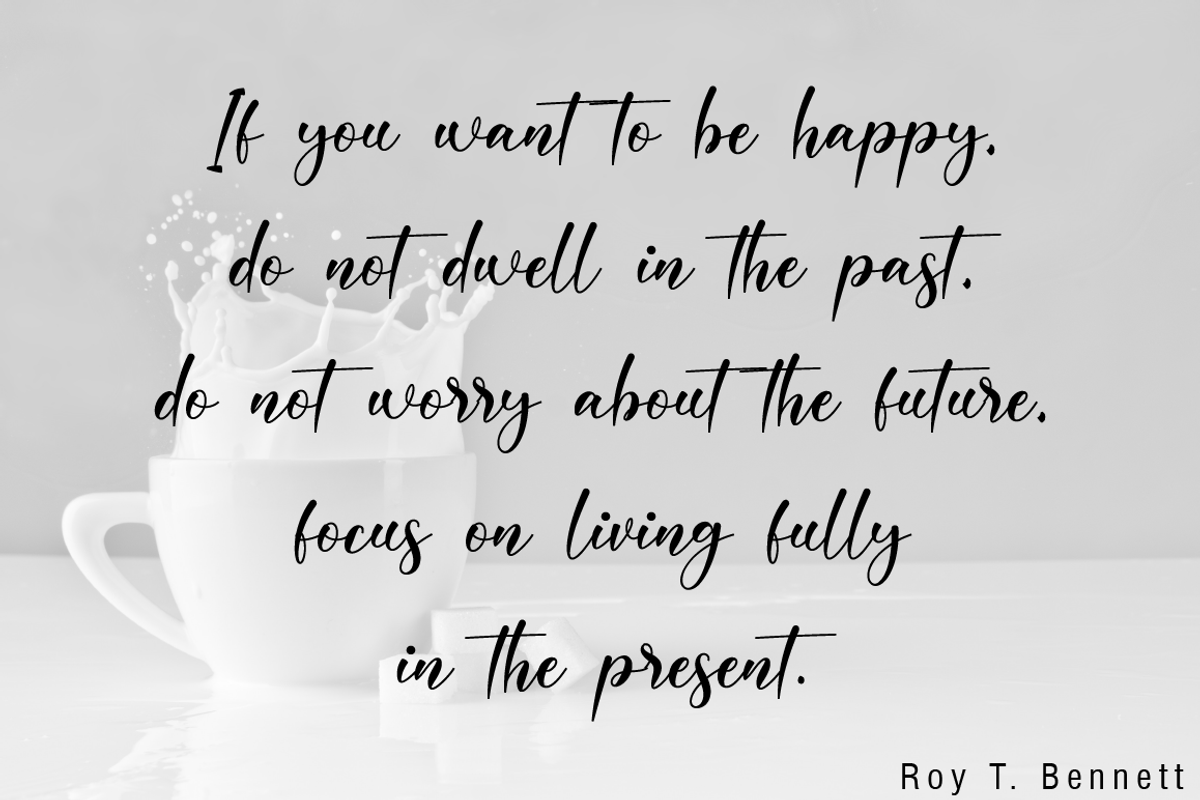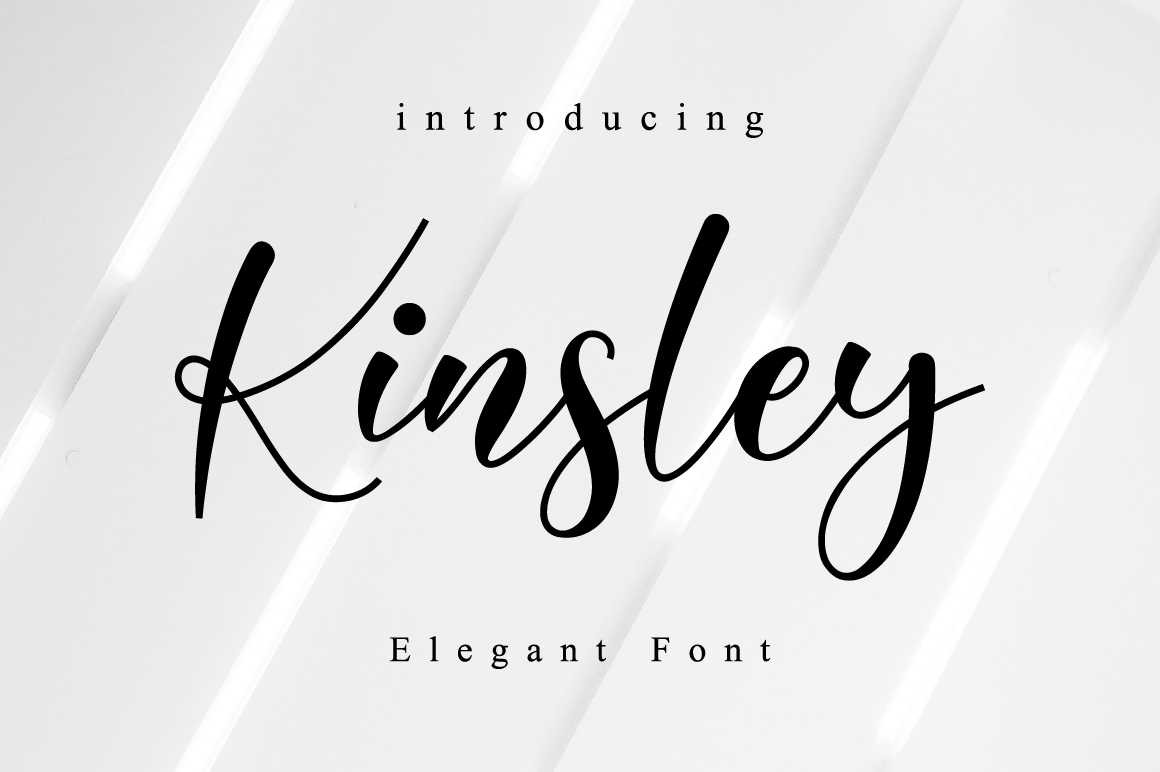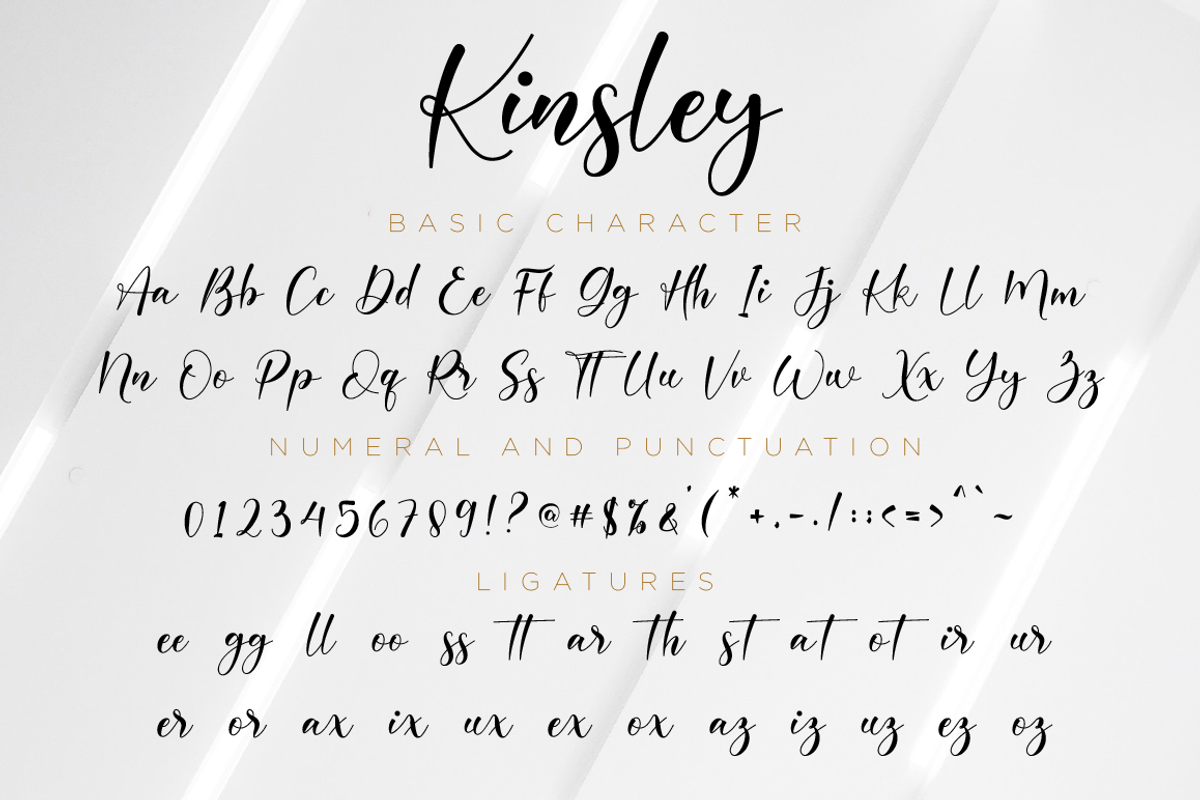
Kinsley // Elegant Font
Kinsley Script is a beautifully light script font with a silky smooth feel. It will add plenty of class and character to any design project!
Each Font Has:
- Modern Handwritten Font
- Beautiful Swash (Ending tail)
- Beautiful Titling (Beginning tail)
- Special Ligatures